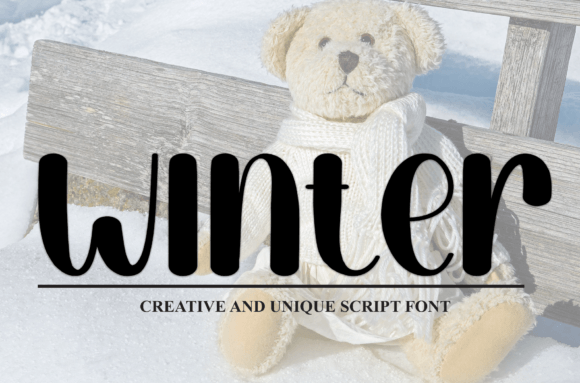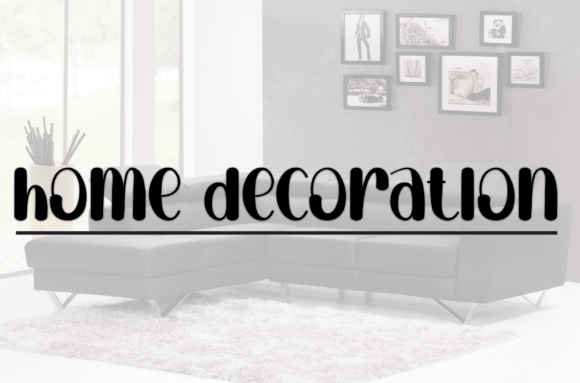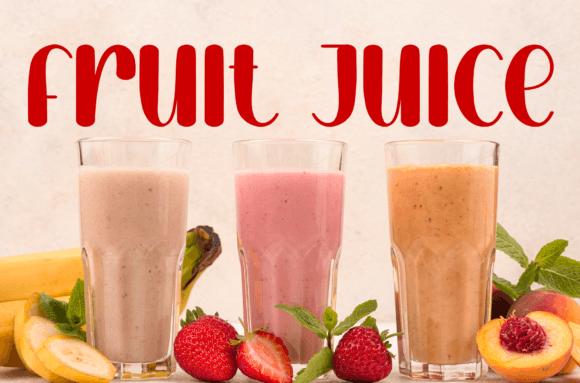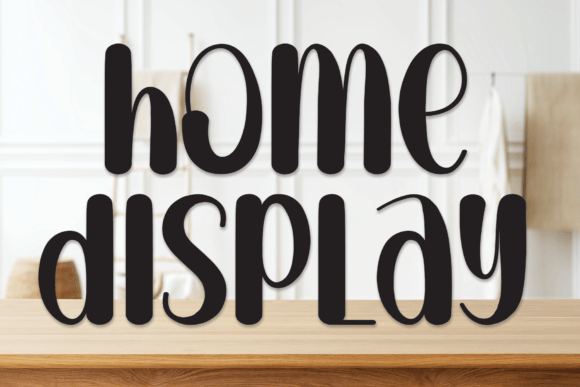
Introduction to Home Display Font
Home Display is a cool and friendly handwritten display font.
Creative and versatile, this font is ideal for writing wedding invitations, cards, or any other design that might need a fun touch .
Why Choose Home Display Font?
Home Display Font offers exceptional quality and versatility, making it a valuable addition to your design toolkit. Whether you’re creating for personal projects or commercial use, Home Display Font delivers professional results.